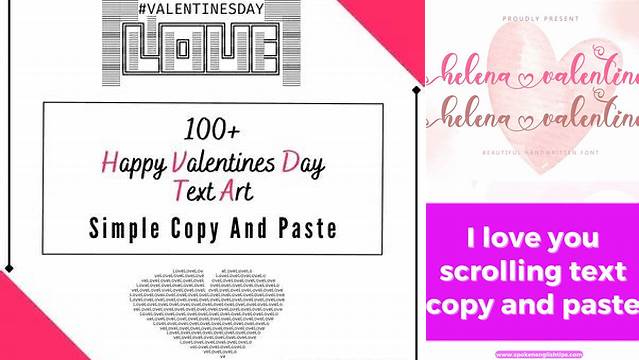
Valentine Fonts: Copy & Paste Guide For A Lovely Day
Hey guys! Valentine's Day is just around the corner, and you know what that means – time to get creative and spread the love! One of the easiest (and most fun!) ways to do that is by using beautiful and unique fonts. But who has time to download and install a bunch of fonts, right? That's where the magic of "copy and paste" comes in! This article will dive into the world of Valentine fonts, showing you where to find them, how to use them, and give you some inspiration to get your creative juices flowing. So, let's get started and make this Valentine's Day extra special with some awesome fonts!
Why Use Special Fonts for Valentine's Day?
Before we jump into the "how," let's talk about the "why." Why bother using special fonts for Valentine's Day? Well, guys, think about it – fonts have the power to evoke emotions and set the mood. A simple message written in a generic font can feel… well, generic. But the same message written in a romantic script font or a playful, handwritten-style font can suddenly feel much more heartfelt and personal. Fonts are a crucial element of visual communication, and they can make a big difference in how your message is received. Imagine creating a Valentine's Day card using a standard, plain font like Arial or Times New Roman. It would probably get the message across, but it wouldn't exactly scream romance, would it? Now, picture that same message written in a delicate, cursive font with elegant swirls and flourishes. Suddenly, the card has a touch of sophistication and romance. Or, if you're going for a more fun and playful vibe, a whimsical, handwritten-style font can add a touch of lightheartedness and charm. The right font can instantly elevate your Valentine's Day creations, whether you're designing cards, social media posts, website banners, or even just a sweet note for your loved one. It's a simple way to add a personal touch and make your message truly stand out. Think of it like choosing the perfect outfit for a date – you want something that reflects your personality and sets the right mood, right? Fonts are the same way! They're a way to express your creativity and add a unique flair to your Valentine's Day greetings. By choosing fonts that capture the spirit of the holiday, you can create designs that are both visually appealing and emotionally resonant. So, ditch the boring fonts and get ready to explore the wonderful world of Valentine's Day typography! You might be surprised at how much of a difference the right font can make. Using unique fonts isn't just about aesthetics; it's about communicating your feelings in a way that resonates with the recipient. It's about adding a layer of personality and emotion to your message, making it more memorable and meaningful. In a world saturated with generic greetings and mass-produced cards, using a special font is a simple way to show that you've put thought and effort into your Valentine's Day message. It's a small detail that can make a big impact, transforming an ordinary message into something truly special. So go ahead, experiment with different fonts, and find the perfect one to express your love and affection this Valentine's Day. Your creativity will surely be appreciated!
Where to Find Valentine Fonts for Copy and Paste
Okay, so you're convinced that special fonts are the way to go. Great! Now, where do you find them? The good news is, there are tons of resources online that offer Valentine-themed fonts that you can easily copy and paste. You don't need to be a design guru or have fancy software. Here are some of my favorite spots to hunt for these digital gems:
Online Font Generators: These websites are a lifesaver! They let you type in your text, choose from a variety of stylish fonts, and then simply copy the generated text to paste wherever you need it. Some popular options include LingoJam, Cool Symbol, and TextyNick. These generators often have a range of fonts specifically designed for Valentine's Day, including cursive scripts, heart-themed fonts, and playful handwritten styles. It's a super quick and easy way to add some flair to your messages. Online font generators are incredibly user-friendly, even for those who aren't tech-savvy. You simply type your message into a text box, and the website will instantly display your text in a variety of different fonts. You can then browse through the options, choose the font you like best, and copy and paste it into your desired application. This eliminates the need to download and install fonts, which can be time-consuming and sometimes even require special software. Many of these generators also offer customization options, allowing you to adjust the size, color, and even add special effects to your text. This gives you even more control over the final look of your Valentine's Day creations. Another great feature of online font generators is that they often provide previews of how your text will look in different fonts. This allows you to experiment with different styles and see which one best suits your message and overall design. You can try out a variety of fonts, from elegant scripts to playful handwritten styles, without having to download or install anything. This makes it easy to find the perfect font for your Valentine's Day projects. Plus, many online font generators are completely free to use, making them a budget-friendly option for adding some creative flair to your Valentine's Day greetings. So, if you're looking for a quick, easy, and affordable way to find Valentine-themed fonts, online font generators are a great place to start.
Social Media Font Generators: Want to spice up your Instagram captions or Facebook posts? Several websites specialize in generating stylish text for social media. These often include fonts that are perfect for Valentine's Day! Websites like YayText and Meta Text Generator are excellent resources for this. These platforms understand the limitations of social media platforms when it comes to font options and provide creative solutions for users to express themselves through text. Social media font generators work similarly to general online font generators, but they often include features specifically designed for social media use. For example, they may offer fonts that are optimized for readability on different devices or that are compatible with the character limits of various social media platforms. This makes it easy to create eye-catching captions and posts that stand out from the crowd. One of the biggest advantages of using social media font generators is that they allow you to use fonts that are not natively supported by social media platforms. This means you can add a unique touch to your posts and create a more personalized online presence. Whether you're looking to add a romantic script font to your Valentine's Day Instagram caption or a playful handwritten font to your Facebook post, these generators can help you achieve the desired effect. Another benefit of social media font generators is that they often offer a wide variety of fonts to choose from, including many that are specifically designed for Valentine's Day. This makes it easy to find the perfect font to express your love and affection in your social media posts. You can experiment with different styles and see which one best suits your message and overall aesthetic. Plus, many of these generators are free to use, making them a cost-effective way to add some creative flair to your social media presence. So, if you're looking to make your Valentine's Day social media posts extra special, be sure to check out these fantastic resources!
Unicode Text Converters: These tools utilize Unicode characters to create unique text styles. While not always specifically Valentine's Day-themed, you can often find some romantic or elegant styles that work well. A quick search for "Unicode text converter" will give you plenty of options. Unicode text converters are a fascinating way to create unique text styles by utilizing the vast range of characters available in the Unicode standard. Unicode is a universal character encoding system that includes characters from virtually every language and writing system in the world. This means that Unicode text converters can generate text styles that are not possible with standard fonts. While not all Unicode characters are specifically designed for Valentine's Day, you can often find some romantic or elegant styles that work beautifully for the occasion. For example, you might find characters that resemble cursive scripts, decorative symbols, or even heart-shaped elements. The key is to experiment and explore the different options available. One of the most appealing aspects of using Unicode text converters is the ability to create truly unique and eye-catching text styles. Because Unicode includes such a wide range of characters, you can create text that stands out from the crowd and grabs attention. This can be especially useful for Valentine's Day messages, where you want to express your love and affection in a memorable way. However, it's important to keep in mind that not all devices and platforms support all Unicode characters. This means that some users may not be able to see the text styles you create. Before using Unicode text in an important message, it's always a good idea to test it on different devices and platforms to ensure that it displays correctly. Despite this limitation, Unicode text converters can be a valuable tool for adding a unique and creative touch to your Valentine's Day messages. They offer a way to express yourself beyond the limitations of standard fonts and create text styles that are truly one-of-a-kind. So, if you're looking for a way to make your Valentine's Day messages stand out, be sure to explore the world of Unicode text converters!
Valentine Font Ideas & Inspiration
Okay, so you know where to find the fonts and how to copy and paste them. Now let's talk about what kinds of fonts you can use! Here are a few ideas to get you inspired:
Romantic Scripts: Think elegant cursive fonts that evoke a sense of classic romance. These are perfect for cards, love letters, and heartfelt messages. When it comes to Valentine's Day, romantic script fonts are a timeless choice for conveying love and affection. These fonts often feature elegant curves, flowing lines, and delicate flourishes, creating a sense of sophistication and grace. They're perfect for adding a touch of romance to your cards, love letters, and other heartfelt messages. Imagine a Valentine's Day card with a message like "I love you more than words can say," written in a beautiful script font. The font itself would enhance the message, adding an extra layer of emotion and sentimentality. There are many different types of romantic script fonts to choose from, each with its own unique style and character. Some are more traditional and formal, while others are more modern and playful. Some popular options include calligraphy-inspired fonts, which mimic the elegant strokes of a calligrapher's pen, and handwritten-style fonts, which have a more personal and intimate feel. When choosing a romantic script font for your Valentine's Day projects, it's important to consider the overall tone and message you want to convey. If you're going for a classic and timeless look, a more formal script font might be the best choice. If you want to add a touch of whimsy and playfulness, a more handwritten-style font could be a better option. No matter which style you choose, a romantic script font is sure to add a touch of elegance and charm to your Valentine's Day creations. It's a simple way to elevate your message and make it even more special. So go ahead, explore the world of romantic script fonts and find the perfect one to express your love and affection this Valentine's Day. Your loved one will surely appreciate the thoughtfulness and effort you put into choosing the right font to convey your feelings.
Playful Handwritten Fonts: These fonts have a more casual and fun vibe. They're great for social media posts, informal notes, or anything where you want to project a lighthearted and friendly feeling. For a Valentine's Day message that's both heartfelt and fun, playful handwritten fonts are an excellent choice. These fonts have a casual and approachable vibe, making them perfect for expressing your affection in a lighthearted way. They're great for social media posts, informal notes, and any other communication where you want to project a friendly and genuine feeling. Think about using a playful handwritten font for a Valentine's Day card that you're sending to a friend or family member. The font will convey your love and appreciation in a warm and cheerful way. Or, imagine using it for a social media post expressing your excitement about Valentine's Day. The playful font will add a touch of fun and personality to your message. There are many different types of playful handwritten fonts available, each with its own unique character and charm. Some mimic the look of handwriting with a pen or pencil, while others have a more whimsical and artistic style. Some popular options include script fonts with playful loops and swirls, and sans-serif fonts with a handwritten-inspired design. When choosing a playful handwritten font for your Valentine's Day projects, consider the overall tone and message you want to convey. If you're aiming for a lighthearted and cheerful feeling, a font with a bouncy and whimsical style might be a good choice. If you want something a bit more sophisticated but still playful, a font with a clean and legible design could be a better option. The key is to find a font that reflects your personality and the tone of your message. Playful handwritten fonts are a fantastic way to add a personal touch to your Valentine's Day greetings. They show that you've put thought and effort into your message, and they can help you express your feelings in a fun and engaging way. So, this Valentine's Day, consider ditching the formal fonts and opting for a playful handwritten style instead. You might be surprised at how much of a difference it can make!
Fonts with Heart Accents: Some fonts incorporate heart shapes into the letters themselves! These are super cute and perfect for adding a Valentine's Day touch. If you're looking to add an extra touch of love and whimsy to your Valentine's Day messages, fonts with heart accents are a perfect choice. These fonts incorporate heart shapes into the letters themselves, creating a visually appealing and undeniably festive effect. Imagine using a font where the dots on the "i's" are replaced with hearts, or where the curves of the letters are subtly shaped like hearts. These fonts are sure to make your Valentine's Day greetings stand out and bring a smile to your loved one's face. Fonts with heart accents are incredibly versatile and can be used in a variety of Valentine's Day projects. They're perfect for creating cards, invitations, social media graphics, and even website banners. They can also be used to add a touch of romance to everyday messages and notes. Think about using a font with heart accents to write a sweet message to your partner, or to create a fun and festive invitation to a Valentine's Day party. There are many different styles of fonts with heart accents available, ranging from delicate and elegant to bold and playful. Some fonts feature subtle heart shapes incorporated into the letterforms, while others have more prominent and eye-catching heart designs. You can find fonts with hearts in a variety of sizes, shapes, and orientations, allowing you to choose the perfect font to match your project's style and tone. When selecting a font with heart accents, it's important to consider the overall design and readability of the font. You want to choose a font that is both visually appealing and easy to read, ensuring that your message is clear and effective. It's also a good idea to consider the context in which the font will be used. A font with large and elaborate heart accents might be perfect for a festive invitation, but it might not be the best choice for a more formal Valentine's Day card. Fonts with heart accents are a fun and creative way to express your love and affection this Valentine's Day. They're a simple yet effective way to add a touch of romance and whimsy to your messages and designs. So, go ahead and explore the world of heart-themed fonts and find the perfect one to spread the love!
Bold & Decorative Fonts: If you want your message to really pop, try a bold or decorative font. These can be great for headlines, banners, or anything where you want to make a statement. For those who want to make a bold statement of love this Valentine's Day, bold and decorative fonts are an excellent choice. These fonts command attention and add a touch of drama and flair to your messages and designs. Whether you're creating headlines, banners, or other visual elements, a bold and decorative font can help your message stand out from the crowd. Imagine a Valentine's Day banner with a bold headline like "Happy Valentine's Day" or "I Love You," written in a striking decorative font. The font itself would become a focal point, drawing the eye and conveying your message with impact. Or, think about using a bold font for a social media post or email subject line. The font will help your message grab attention and encourage people to click and learn more. There are countless styles of bold and decorative fonts available, each with its own unique personality and appeal. Some fonts feature thick, chunky letterforms, while others have intricate details and embellishments. You can find fonts with a vintage feel, fonts with a modern edge, and everything in between. The key is to choose a font that reflects your style and the tone of your message. When selecting a bold and decorative font, it's important to consider the overall legibility of the font. While these fonts are designed to be eye-catching, you still want to make sure that your message is easy to read and understand. Avoid fonts that are too ornate or cluttered, and make sure that the letterforms are well-defined. It's also a good idea to consider the context in which the font will be used. A font that looks great in a headline might not be suitable for body text, and vice versa. Bold and decorative fonts are a fantastic way to add personality and visual interest to your Valentine's Day creations. They can help you create messages that are both memorable and impactful. So, if you're looking to make a statement this Valentine's Day, don't be afraid to experiment with bold and decorative fonts. With the right font, you can create designs that truly capture the spirit of the holiday.
Tips for Using Valentine Fonts
Before you go font-crazy, here are a few tips to keep in mind:
Don't Overdo It: It's tempting to use a bunch of different fonts, but stick to a maximum of 2-3 fonts in a single design. Too many fonts can look cluttered and confusing. Think of it like a musical composition – you need harmony, not a cacophony! Using too many fonts in one design can create visual chaos and make your message difficult to read. It's much more effective to choose a few fonts that complement each other and use them consistently throughout your design. This will create a cohesive and professional look. A good rule of thumb is to stick to a maximum of 2-3 fonts in a single design. This will allow you to add variety and visual interest without overwhelming the viewer. Choose one font for your headlines, one for your body text, and perhaps a third font for accents or special elements. When selecting fonts, consider their personality and how they work together. A good combination might be a bold sans-serif font for headlines and a classic serif font for body text. Or, you could pair a script font with a simple sans-serif font for a more modern look. The key is to choose fonts that complement each other and create a visual hierarchy. This will help guide the viewer's eye and make your message more impactful. It's also important to consider the overall style and tone of your design. If you're creating a romantic Valentine's Day card, you might choose a script font for the headlines and a delicate serif font for the body text. If you're designing a fun and playful Valentine's Day social media post, you might opt for a handwritten font and a bold sans-serif font. By carefully selecting and combining fonts, you can create designs that are both visually appealing and effective at communicating your message. Remember, less is often more when it comes to typography. So, resist the urge to use every font you love, and instead, focus on creating a balanced and harmonious design.
Readability is Key: Make sure your chosen font is easy to read, especially for longer messages. A beautiful font is useless if people can't decipher what you're saying! Visual appeal is important, but readability should always be your top priority when choosing fonts for your Valentine's Day projects. A stunning font is of little use if your message is difficult or impossible to decipher. Remember, the primary goal of your design is to communicate effectively, and that means choosing fonts that are clear and legible. When selecting fonts, consider the context in which they will be used. A font that looks great in a headline might not be suitable for body text, and vice versa. For longer messages, it's best to choose fonts that are specifically designed for readability, such as classic serif fonts like Times New Roman or Garamond, or clean sans-serif fonts like Arial or Helvetica. These fonts have been carefully crafted to ensure that each letterform is distinct and easy to recognize. Avoid using overly decorative or stylized fonts for body text, as they can be difficult to read and may tire the viewer's eyes. These fonts are best reserved for headlines or accents, where they can add a touch of visual interest without sacrificing readability. It's also important to consider the size and spacing of your text. Make sure that your text is large enough to read comfortably, and that there is enough space between the letters, words, and lines. Crowded text can be difficult to read, even if the font itself is legible. In addition to font choice, color and contrast also play a role in readability. Choose colors that provide sufficient contrast between the text and the background. Light text on a dark background or dark text on a light background is generally easier to read than text and background colors that are too similar. Ultimately, the best way to ensure that your fonts are readable is to test them out on a variety of devices and screen sizes. Show your design to others and ask for their feedback. If people have difficulty reading your message, it's time to reconsider your font choices. By prioritizing readability, you can create Valentine's Day designs that are both beautiful and effective.
Consider the Tone: Choose fonts that match the overall tone of your message. A formal love letter calls for a different font than a funny Valentine's Day meme. The fonts you choose for your Valentine's Day projects should always align with the overall tone and message you want to convey. Just as the words you use express your emotions, the fonts you select add another layer of meaning and contribute to the overall feeling of your design. A formal love letter, for example, calls for a font that is elegant, sophisticated, and timeless. A script font with graceful curves and delicate flourishes would be a perfect choice for expressing deep and heartfelt emotions. On the other hand, a funny Valentine's Day meme requires a font that is lighthearted, playful, and maybe even a bit quirky. A handwritten-style font or a bold, cartoonish font would be ideal for creating a humorous and fun message. The tone of your message should guide your font selection process. Think about the emotions you want to evoke and choose fonts that complement those feelings. If you're creating a romantic Valentine's Day card, you might choose a font that is both elegant and warm, such as a classic serif font with a touch of personality. If you're designing a modern and stylish Valentine's Day invitation, you might opt for a clean sans-serif font with a touch of drama. It's also important to consider your audience when choosing fonts. What fonts will resonate with your loved ones or friends? A font that appeals to one person might not appeal to another. If you're unsure, it's always a good idea to err on the side of caution and choose a font that is classic, versatile, and easy to read. Ultimately, the best way to choose fonts that match the tone of your message is to experiment and have fun. Try out different fonts and see which ones best capture the feeling you want to express. Don't be afraid to mix and match fonts, but always make sure that your font choices are intentional and cohesive. By carefully considering the tone of your message, you can choose fonts that enhance your message and create a truly memorable Valentine's Day experience.